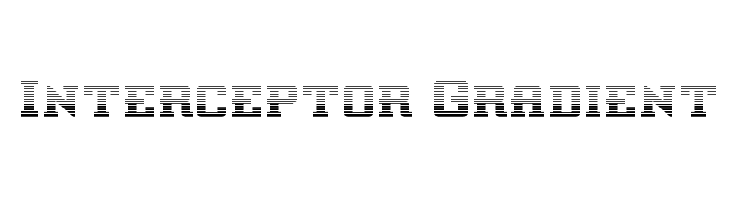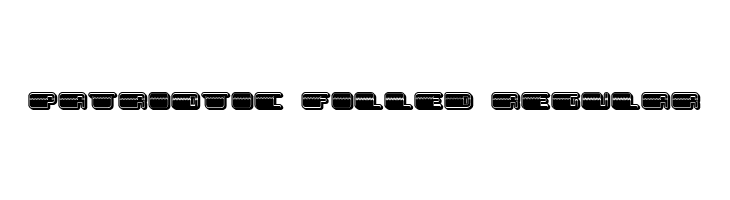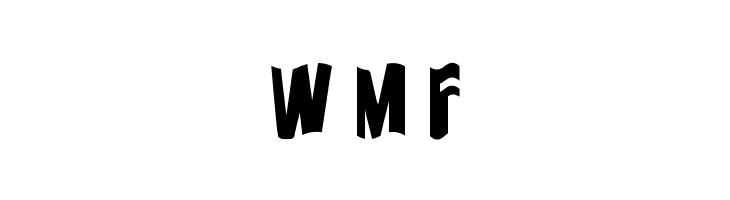
A bold, filled font with a three-dimensional, patriotic style.
A playful, curly font with a whimsical, hand-drawn style.
A bold, italicized font with a modern, futuristic design and tight spacing.
A playful, segmented font with a whimsical, airy design.
A bold, futuristic italic font with sharp angles and high contrast.
An ornate and decorative script font with elaborate swirls and flourishes.
A bold, high-contrast font with a dramatic and modern style.
A bold, futuristic italic font with sharp angles and a dynamic style.
A playful, handwritten font with rounded edges and a bold presence.
A playful, hand-drawn style with slanted, uneven strokes for a dynamic look.